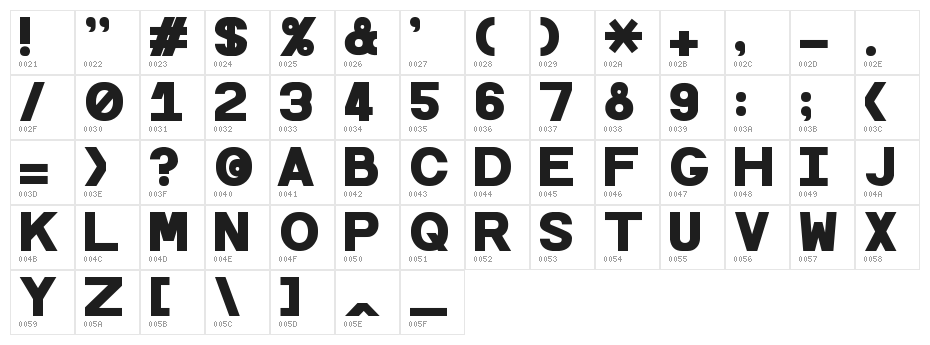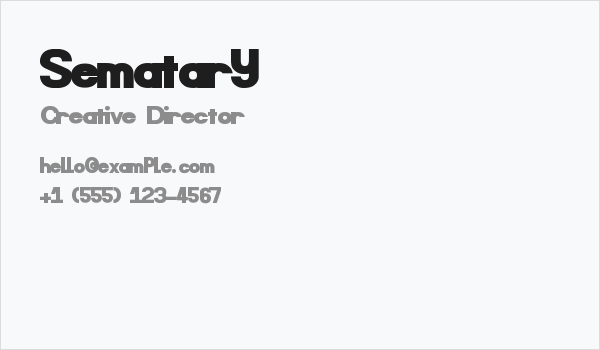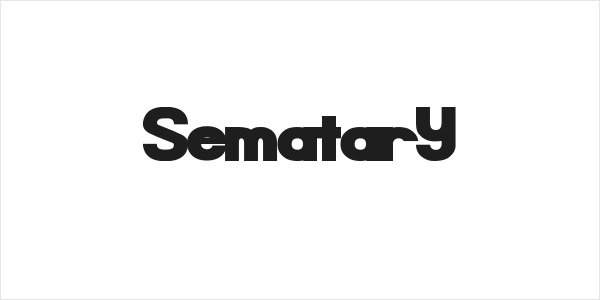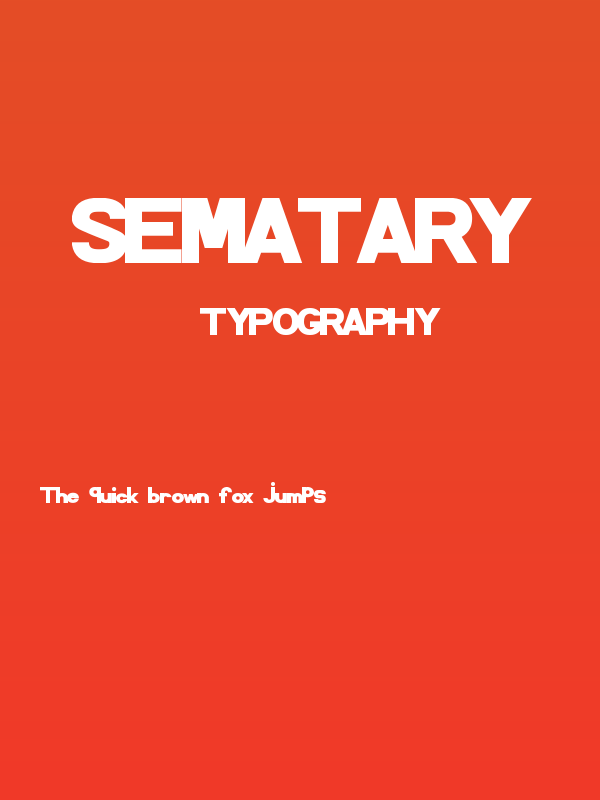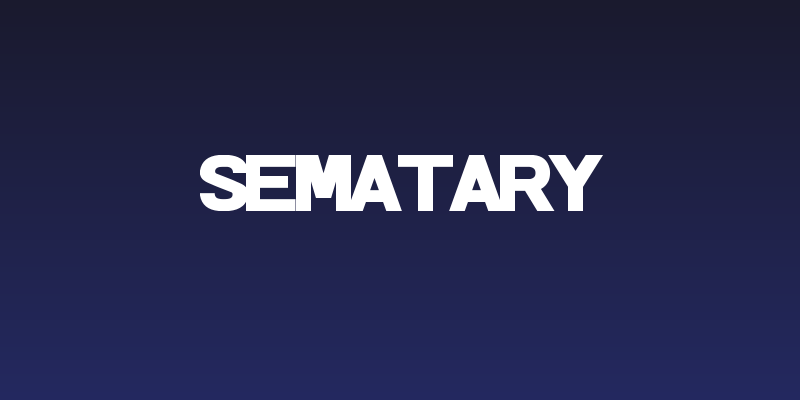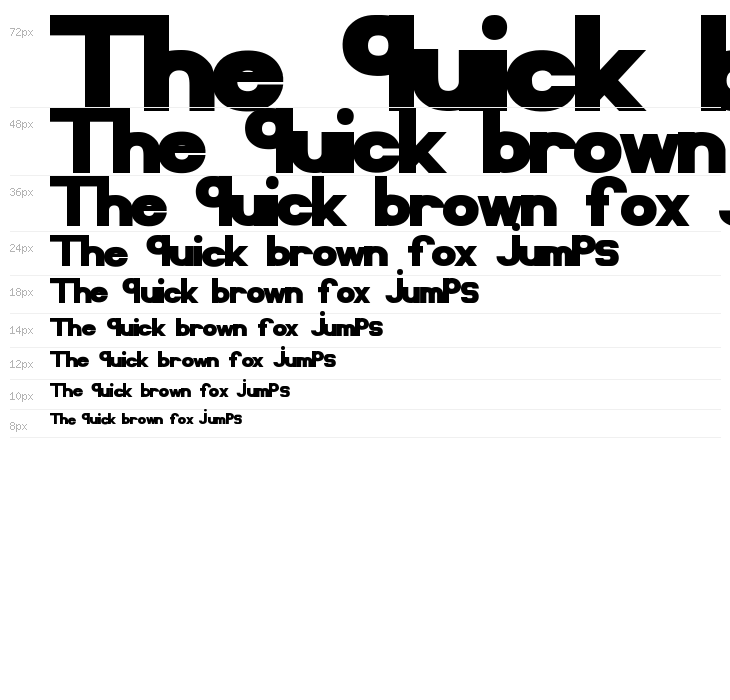
Sematary Font
Sematary Description
This bold and impactful font features a strong, geometric design with thick, uniform strokes that create a powerful visual presence. The uppercase and lowercase letters are crafted with a consistent width, contributing to a cohesive and modern appearance. The numerals and special characters maintain the same boldness, ensuring uniformity across all text elements. The font's design is characterized by its high contrast and solid structure, making it ideal for attention-grabbing headlines and statements. Its clean lines and lack of serifs give it a contemporary feel, while the bold weight adds a sense of authority and emphasis.